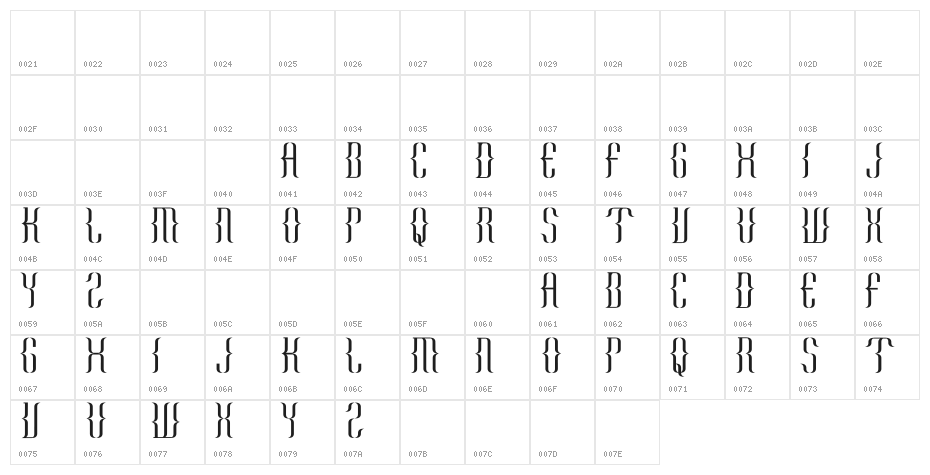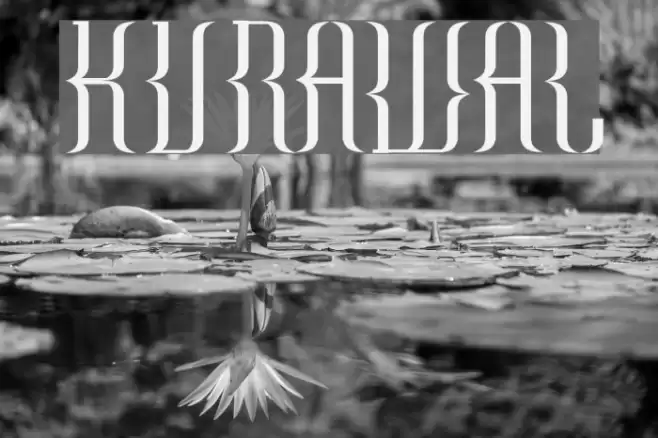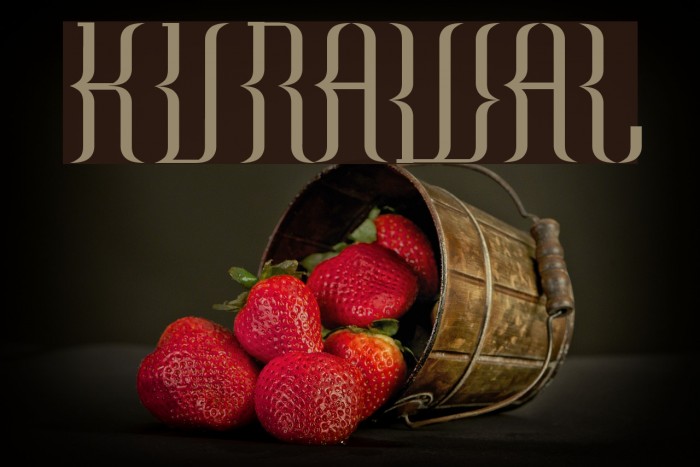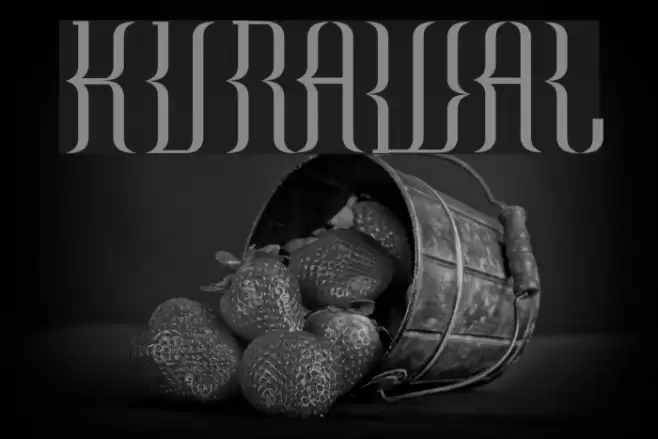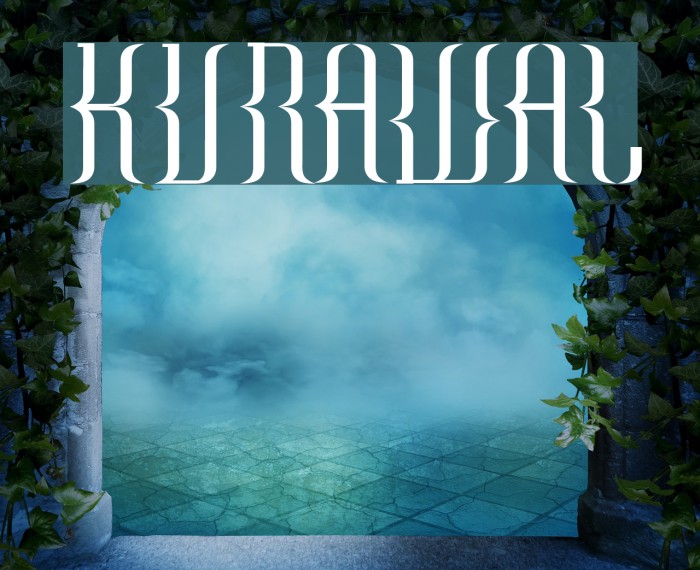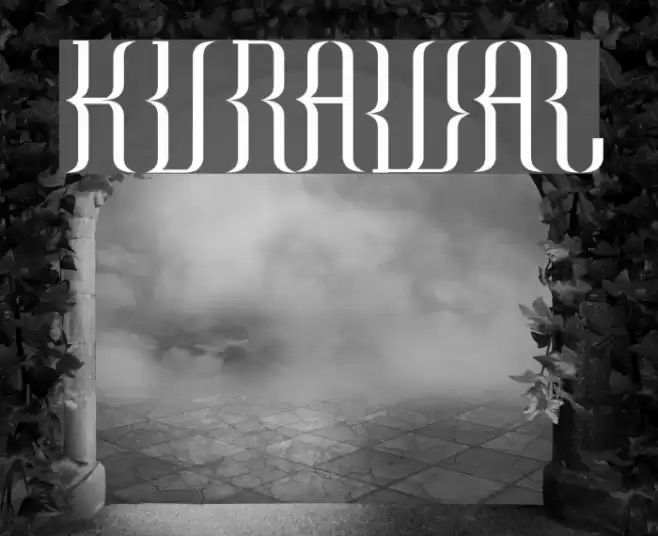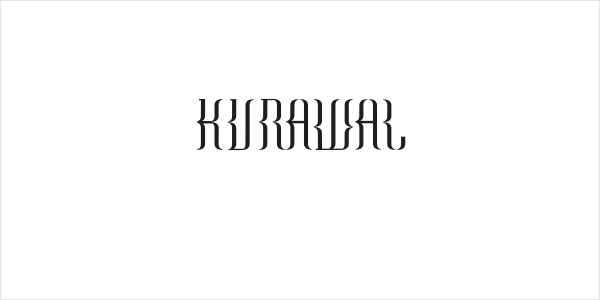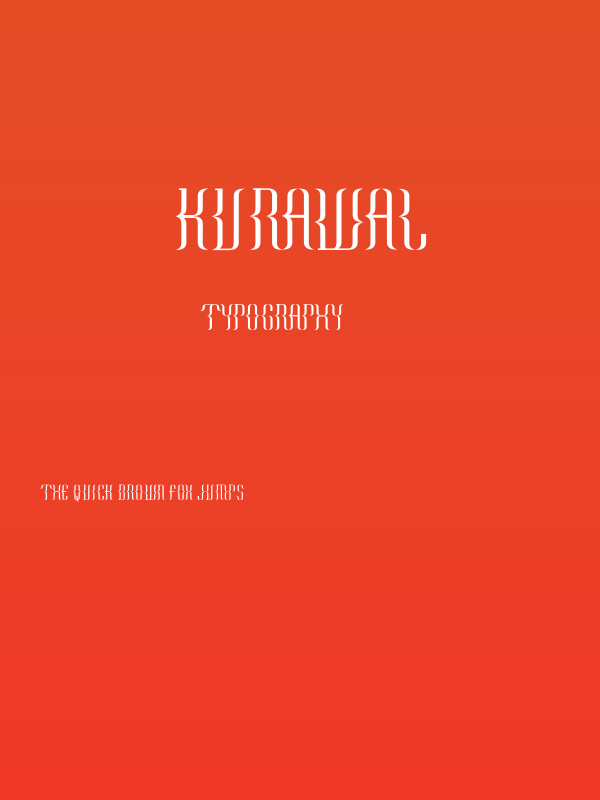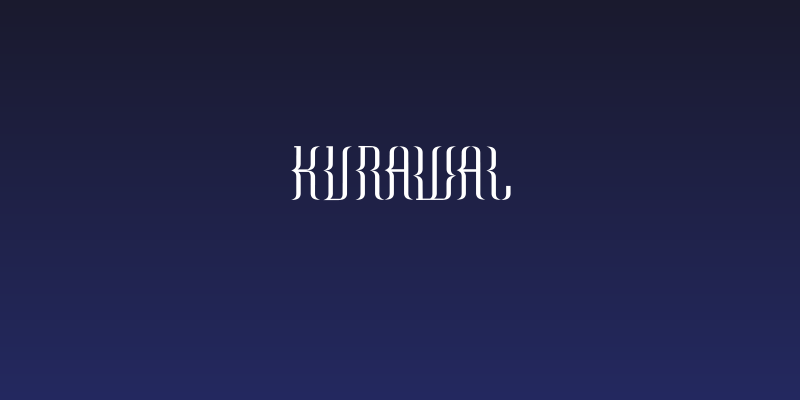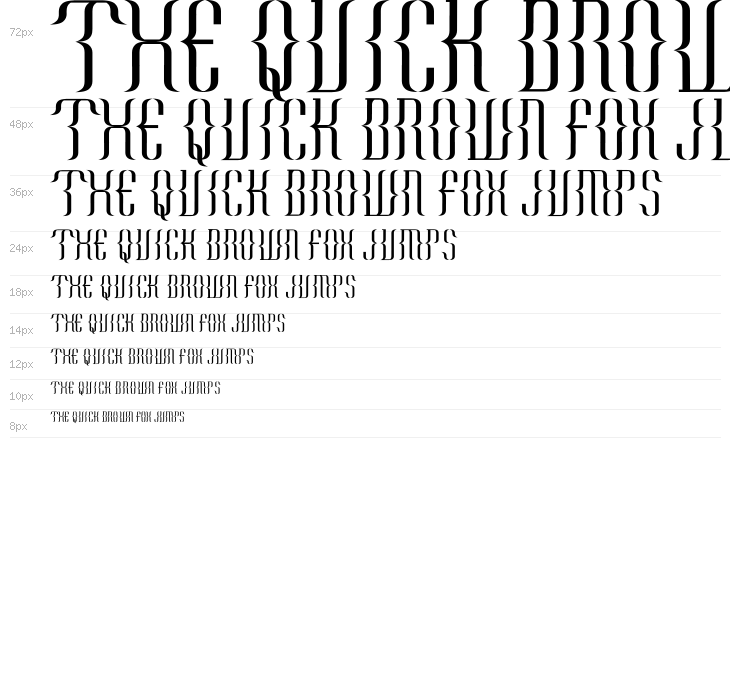
KURAWAL Font
KURAWAL Description
This font features a striking and intricate design with a modern twist. The characters are tall and narrow, with sharp, angular serifs that give it a unique and edgy appearance. The vertical strokes are prominent, while the horizontal strokes are minimal, creating a high contrast that draws attention. The overall style is reminiscent of Gothic or Blackletter fonts, yet it maintains a contemporary feel. This font is perfect for making bold statements and is ideal for use in headlines, posters, or branding that requires a distinct and memorable look.
| Proposed Projects | Ideal for branding, posters, album covers, and any project requiring a bold, memorable typeface. |